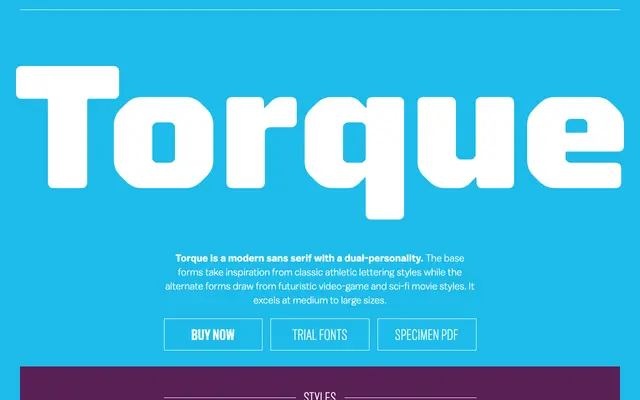
Torque specimen from Balto / Type Supply
A display sans with two personalities: classic athletic lettering in its base forms and futuristic sci-fi alternates via titling OpenType features.
Five weights from Light to Ultra, plus an Inline variant, make up a family designed for medium to large sizes. The base character forms reference classic sports lettering, while titling alternates shift the tone toward video-game and science-fiction aesthetics. Tabular figures, fractions and uppercase-focused features round out the OpenType set for display and headline use.
A modern sans-serif with geometric underpinnings, drawing from athletic lettering and sci-fi display traditions. The dual-personality design with standard and futuristic alternates places it firmly in the display-oriented sans-serif category.